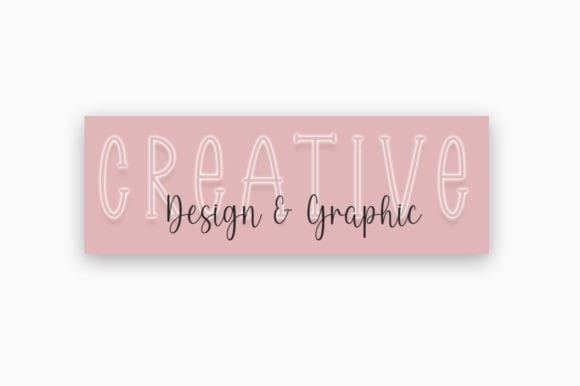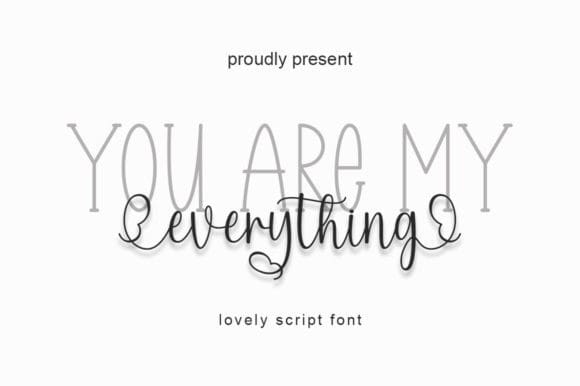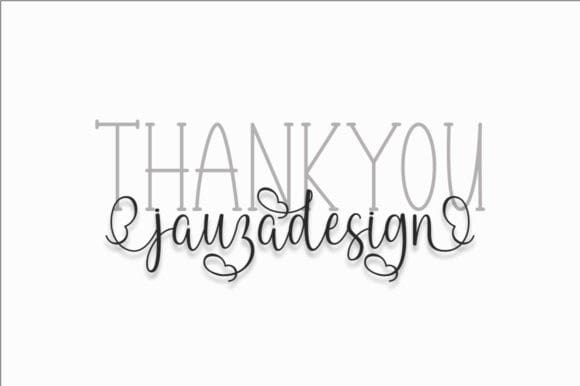
You Are My Everything Font
You Are My Everything Font Duo is a lovely duo font (sans serif and script). Featuring characters that dance along the baseline, this font will add a luxury spark to any design project that you wish to create!
You Are My Everything is PUA encoded which means you can access all of the glyphs and swashes with ease!